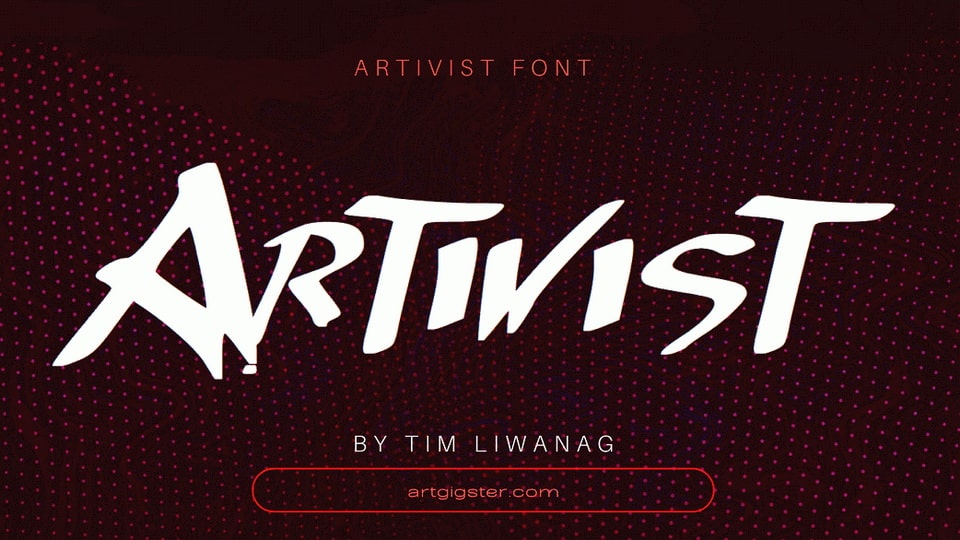
Download Artivist font, a modern brush calligraphy typeface. Artivist is a handwritten font with valor fit for t-shirts, book covers, music labels, and whatever you want to express anywhere.